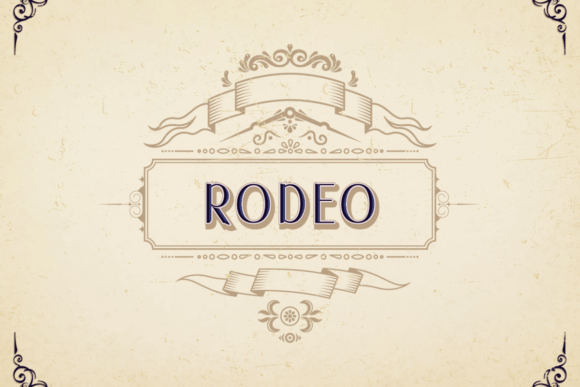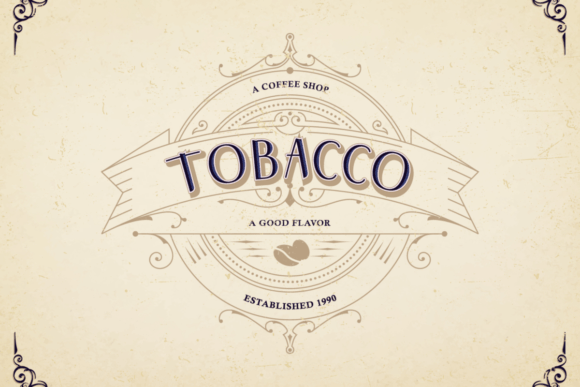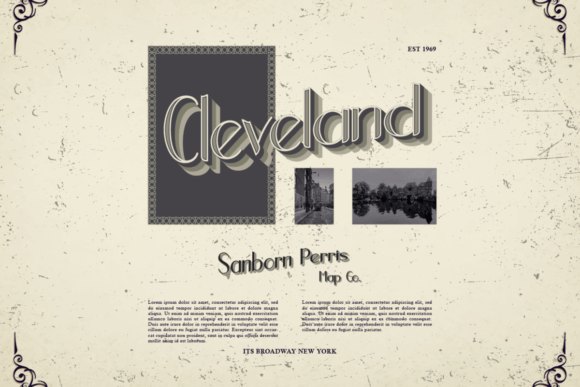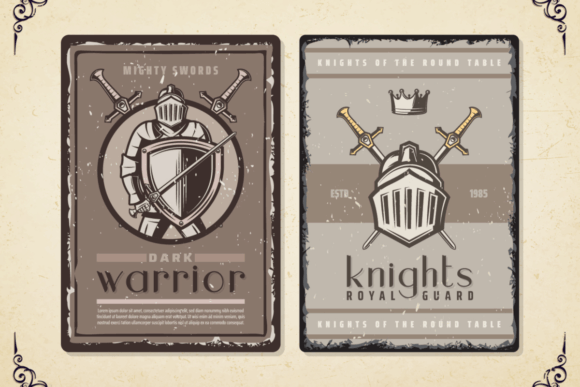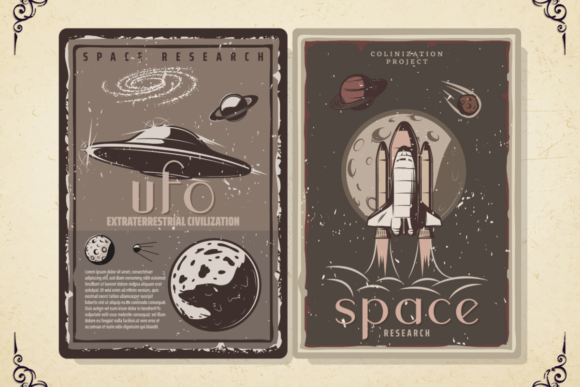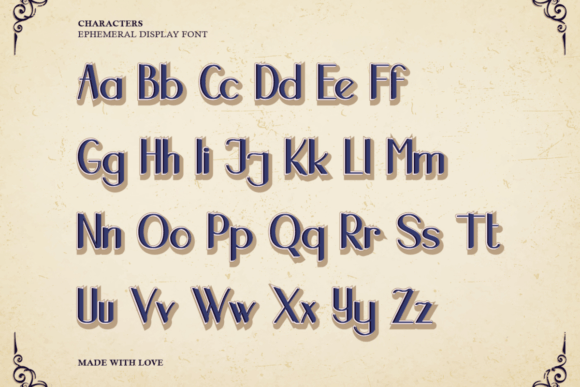
The Perfect Touch: Unlocking the Power of Ephemeral Font
You’ve finally nailed that perfect design concept, but something’s missing – a dash of elegance, a pinch of sophistication. You’ve spent hours pouring over typography options, but nothing seems quite right. That’s where the Ephemeral Font comes in – a stylish and modern serif font that elevates your design to new heights.
Perfectly suited for branding, wedding projects, product packaging, labels, logos, and more, the Ephemeral Font brings a touch of simplicity and sophistication to any design. Its clean lines and minimalist aesthetic make it an invaluable tool for designers looking to create truly extraordinary work.
Whether you’re a seasoned pro or just starting out, the Ephemeral Font is a valuable addition to any design arsenal. With its versatility and timeless charm, it’s no wonder designers are falling in love with this stylish font.
Ephemeral Font Key Features
- Unique Characteristics: Features a distinctive, hand-drawn style with subtle imperfections, giving it a unique and organic feel that sets it apart from other fonts.
- Character Set: Includes a comprehensive character set, covering Latin, Cyrillic, and Greek alphabets, as well as a range of punctuation marks and symbols.
Ephemeral Font Review
As a designer, I was excited to dive into Ephemeral Font and see what it had to offer. ✨ First of all, I love the unique and dreamy feel that this font embodies. It’s perfect for designers who want to add a touch of whimsy to their projects. The letterforms are intricate and delicate, making it a great choice for titles and headings.
The font also includes a wide range of languages, making it a great option for designers working on international projects. ✨ Additionally, the font is highly customizable, allowing designers to tweak the font size, weight, and color to fit their specific needs.
However, I did encounter a few limitations with Ephemeral Font. ⚠️ The font can be a bit difficult to read at smaller sizes, and the intricate details can sometimes make it hard to distinguish between certain letters. Additionally, the font doesn’t include a bold weight, which can limit its use in certain contexts.
Overall, I would give Ephemeral Font 4 out of 5 stars. While it has some limitations, its unique feel and high level of customizability make it a great choice for designers looking to add a touch of elegance to their projects.
- Unique and dreamy feel
- Wide range of languages supported
- Intricate details
- No bold weight
- Can be difficult to read at smaller sizes
Ephemeral Font is ideal for:
- Creating eye-catching headings and titles.
- Designing modern and minimalist logos.
- Adding a touch of elegance to wedding invitations and event materials.